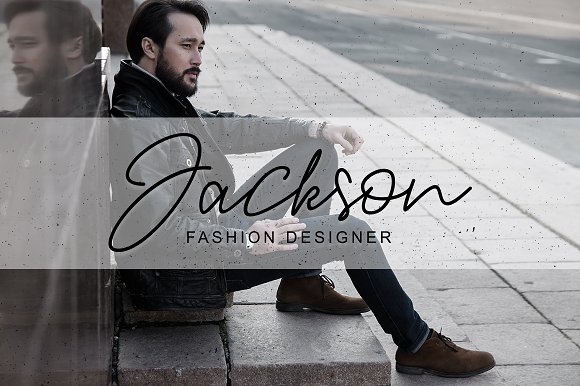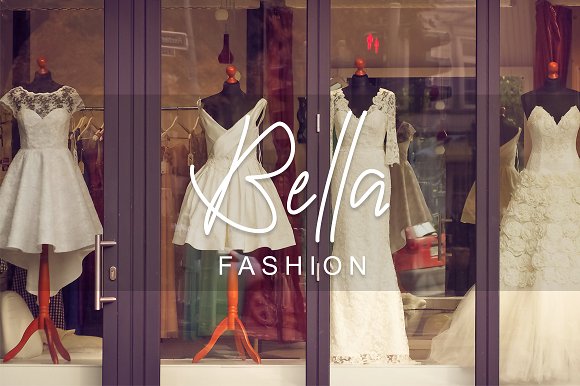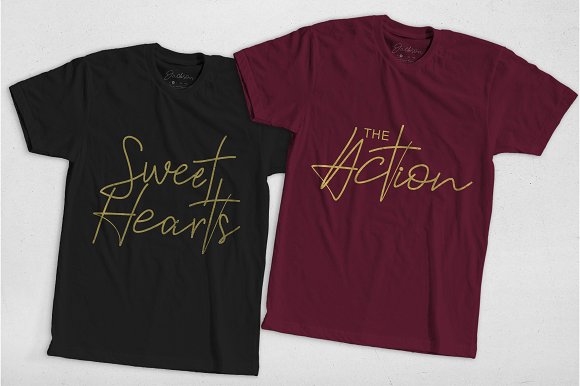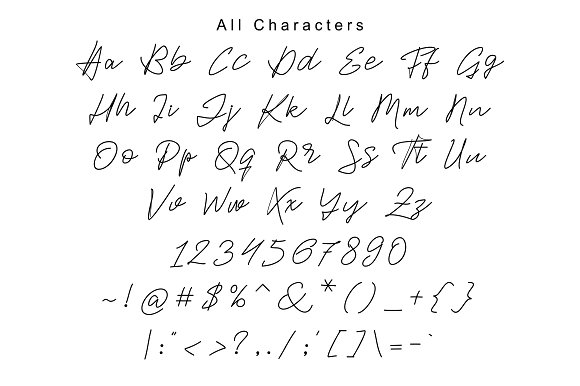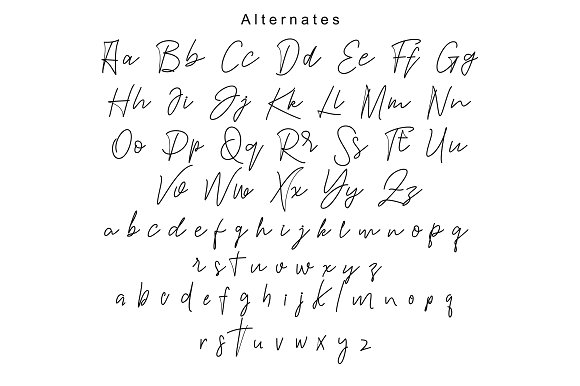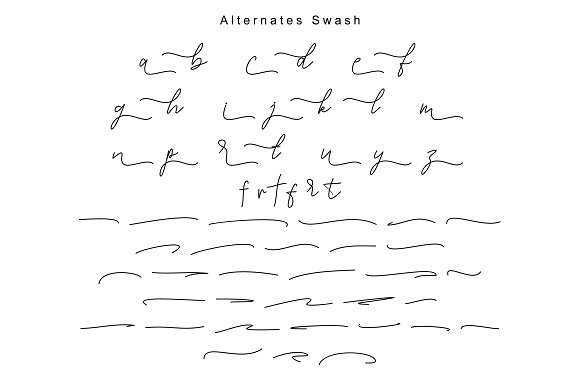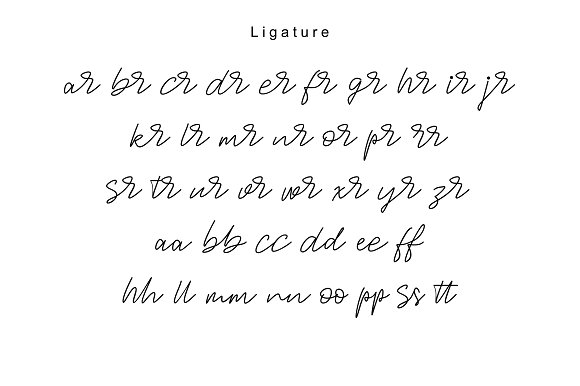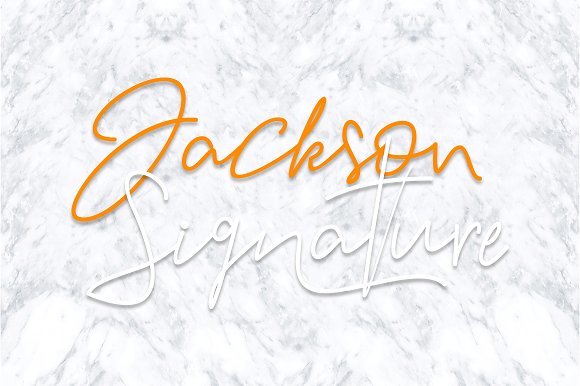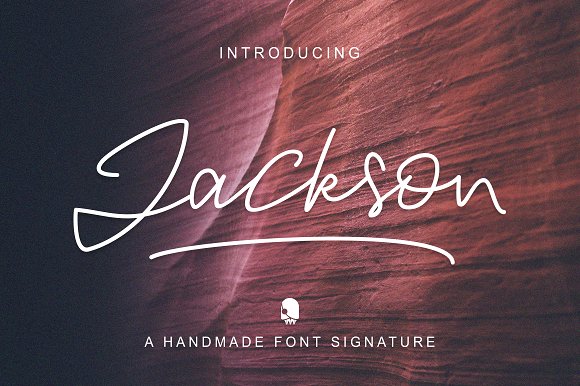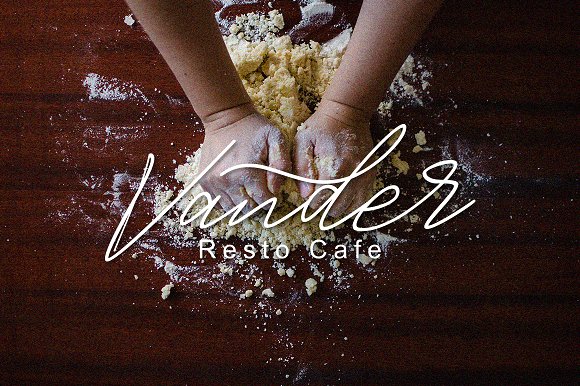
Jackson Font
About Jackson Font
Jackson is a fresh, modern style font. It features over 340 unqiue glyphs and comes in 4 variations: Script, Script Slant, Bold Slant & Bold.